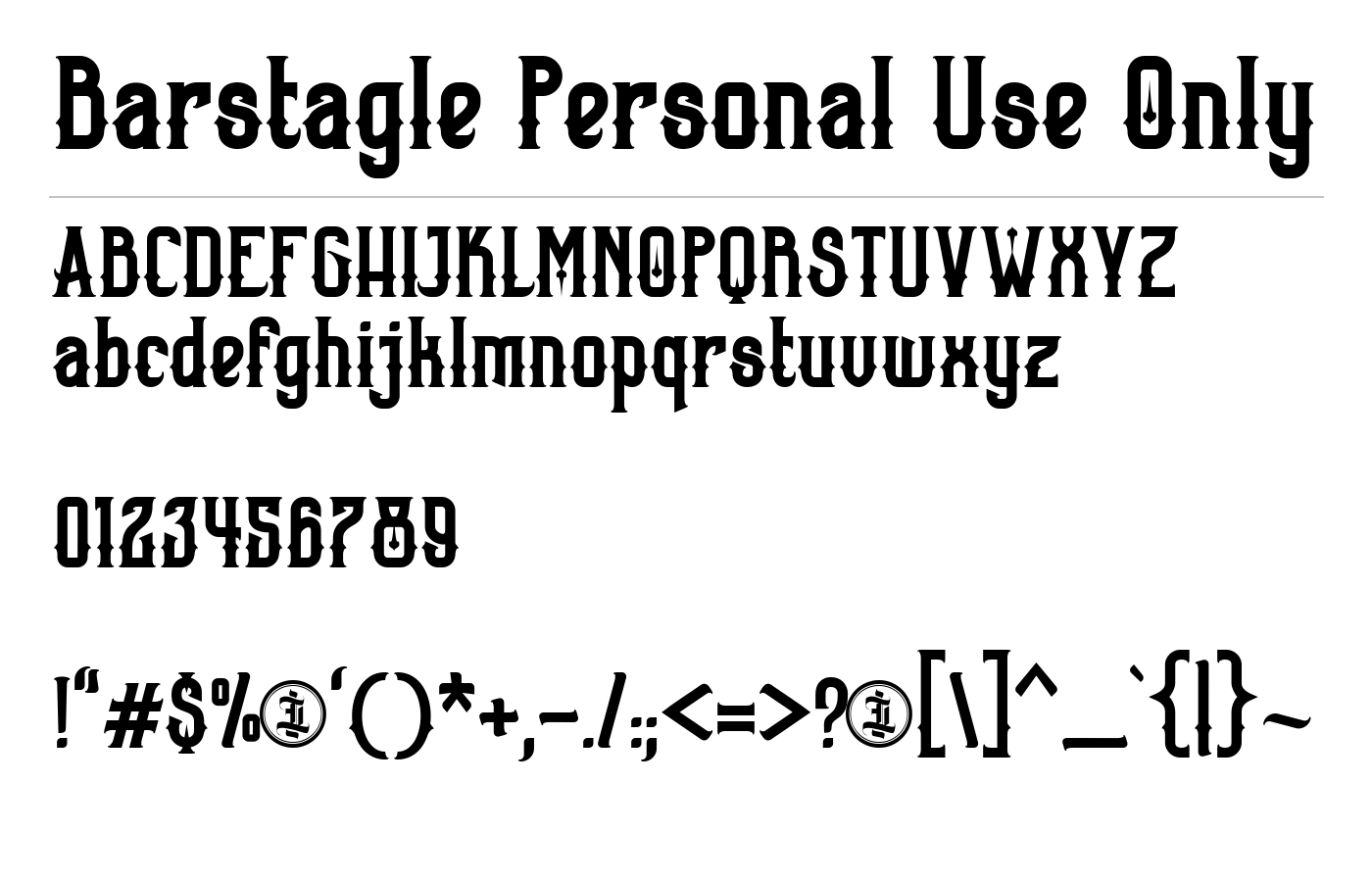
Barstagle Personal Use Only is a bold, condensed serif font with a distinctive vintage western vibe, featuring sharp, bracketed serifs and high stroke contrast. Its tall, narrow letterforms with decorative details give it a strong, rustic personality ideal for eye-catching headlines, logos, and branding that aim to evoke old-style charm with a modern twist. This font works best in designs where a bold, memorable statement is needed, especially in packaging, posters, and editorial projects that want to channel a rugged yet stylish aesthetic.
Barstagle Personal Use Only Font
About Barstagle Personal Use Only Font